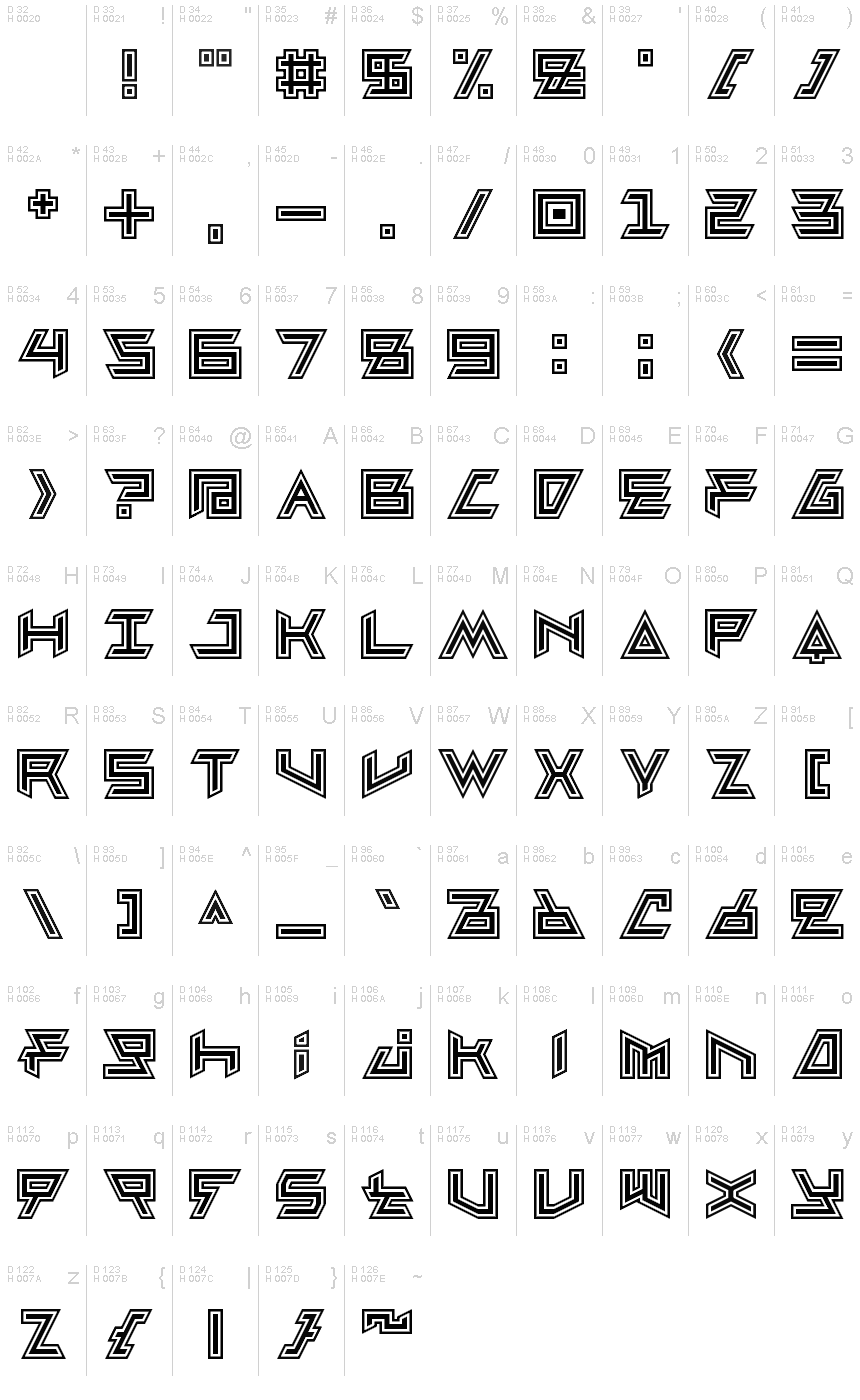
Vampire Nation Regular
“Vampire Nation” was built with FontStruct
Designer description: Font made for the logo of a particular project/video game of mine.
Some kerning pairs are imperfect... I can only bring them 10 bricks closer together, so a bit of space remains...